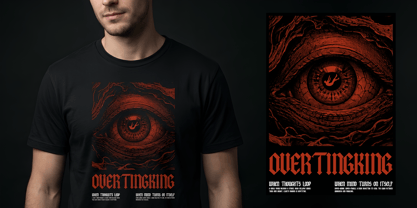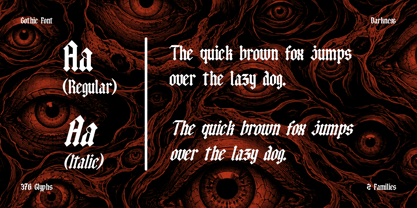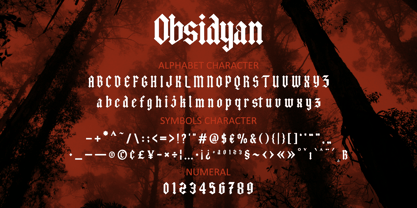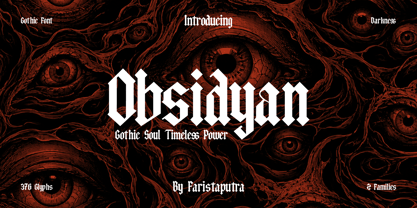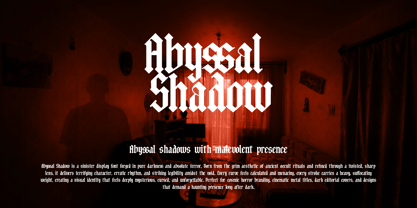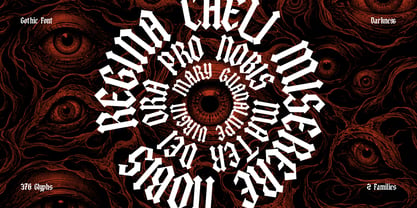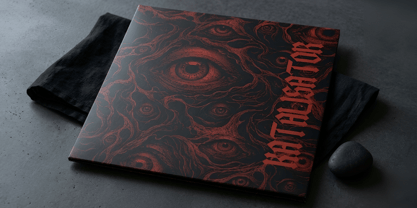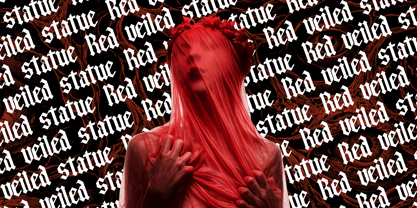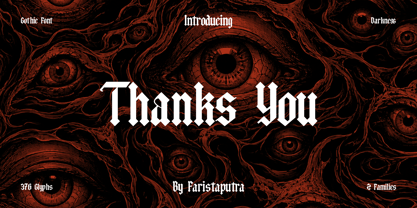
FA Obsidyan
por Faristaputra
La familia tipográfica FA Obsidyan fue diseñada por Frederik Aristaputra y publicada por Faristaputra. FA Obsidyan contiene 2 estilos y opciones de paquete familiar. Más información sobre esta familia
Obsidyan is a dark gothic typeface crafted to evoke a mysterious, surreal, and timeless aesthetic. Drawing inspiration from classic blackletter typography infused with a horror-themed twist, this font showcases sharp letterforms and an intense character, resulting in a bold presence that leaves a powerful visual impression. It is perfect for dark fantasy branding, metal band logos, horror book covers, and striking headline designs. Obsidyan imparts an edgy and chilling aesthetic to any project, making it an ideal choice for designers aiming to establish a bold, exclusive, and enigmatic identity.
Diseñadores: Frederik Aristaputra
Fundición: Faristaputra